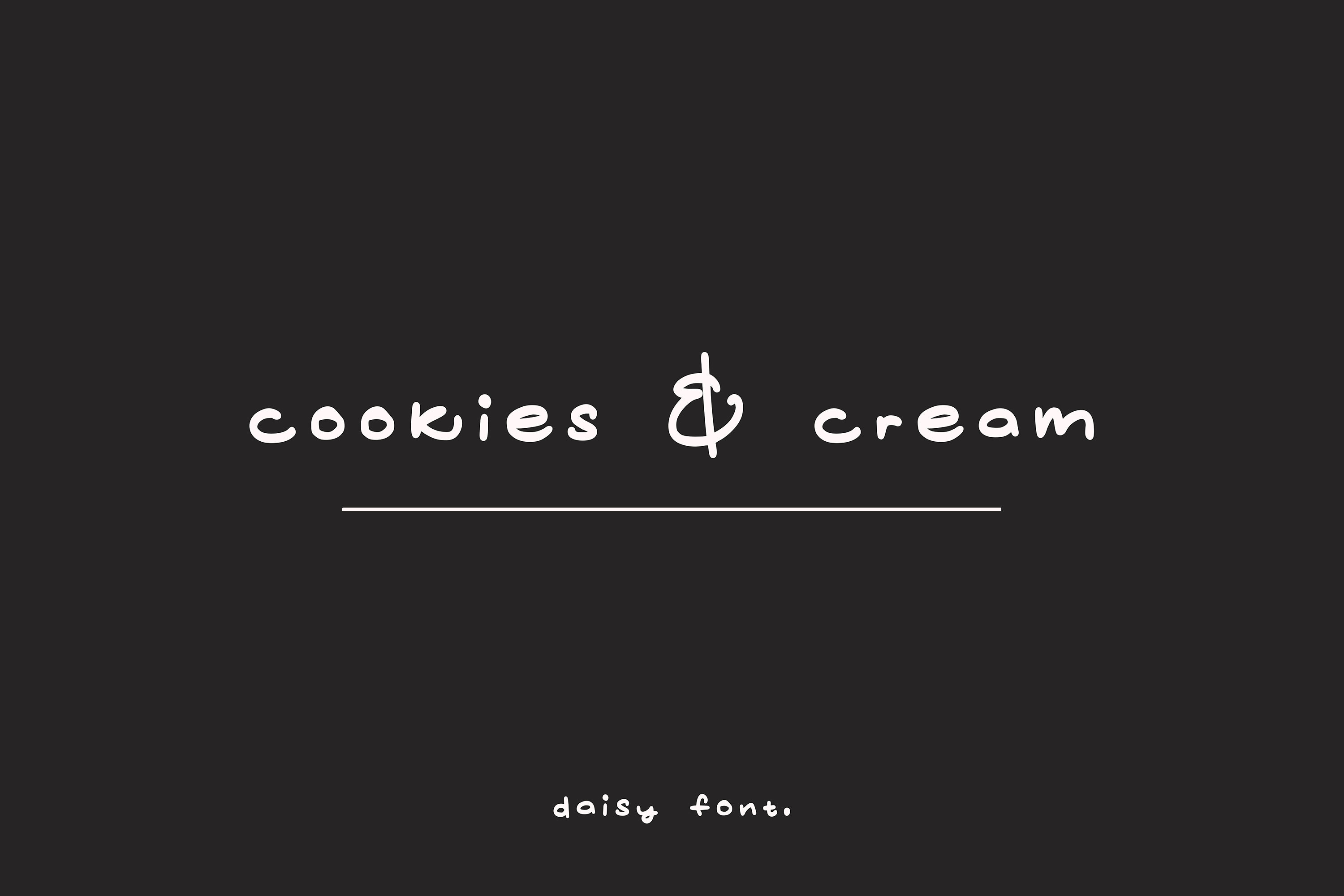
Daisy | Handwritten Font
Daisy is a quirky, whimsical handwritten font, crafted to add an edge of personality and softness to your designs.
For the wanderer, the romantic and the hopeful.